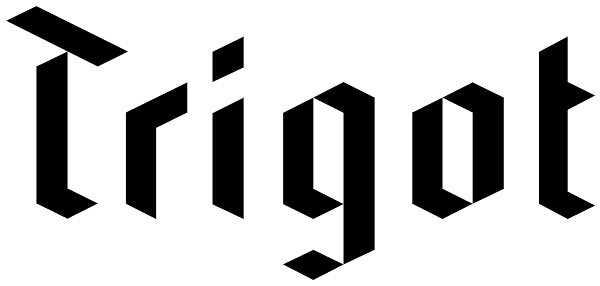
Trigot
Trigot is a modular typeface. Every form and every character is constructed from the basic geometric form of the triangle. The simple construction trigot resembles strongly is a gothic blackletter font. The letters are inspired by the ductus and...